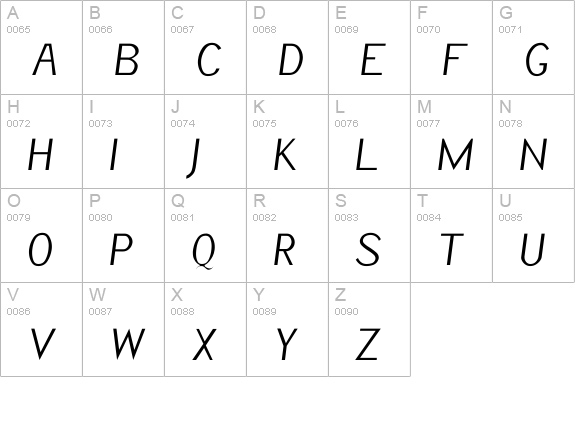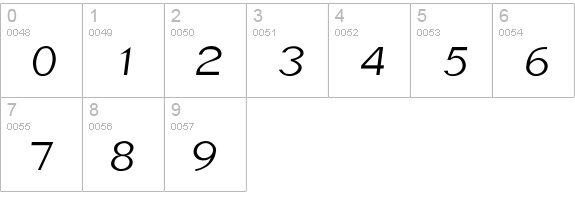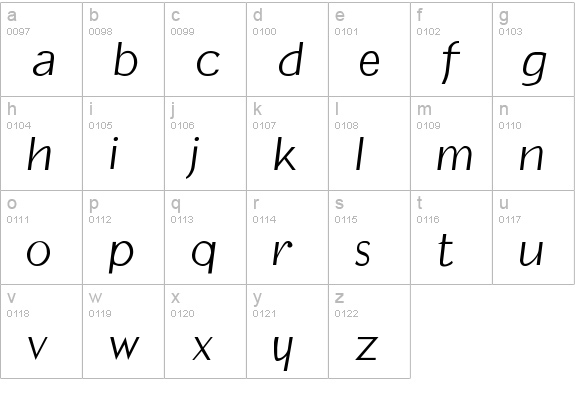
The Memo font is a versatile and modern typeface that is perfect for a wide range of design projects. Its clean lines and sleek design make it easy to read while still maintaining a sense of style and sophistication. With its timeless appeal and classic look, Memo is sure to make a statement in any design layout. What's even better is that the Memo font is available for free download at FontsMarket.com! This means you can easily add this beautiful font to your collection without any cost. So go ahead and give your designs a professional touch with the Memo font, now freely accessible for all your creative needs.